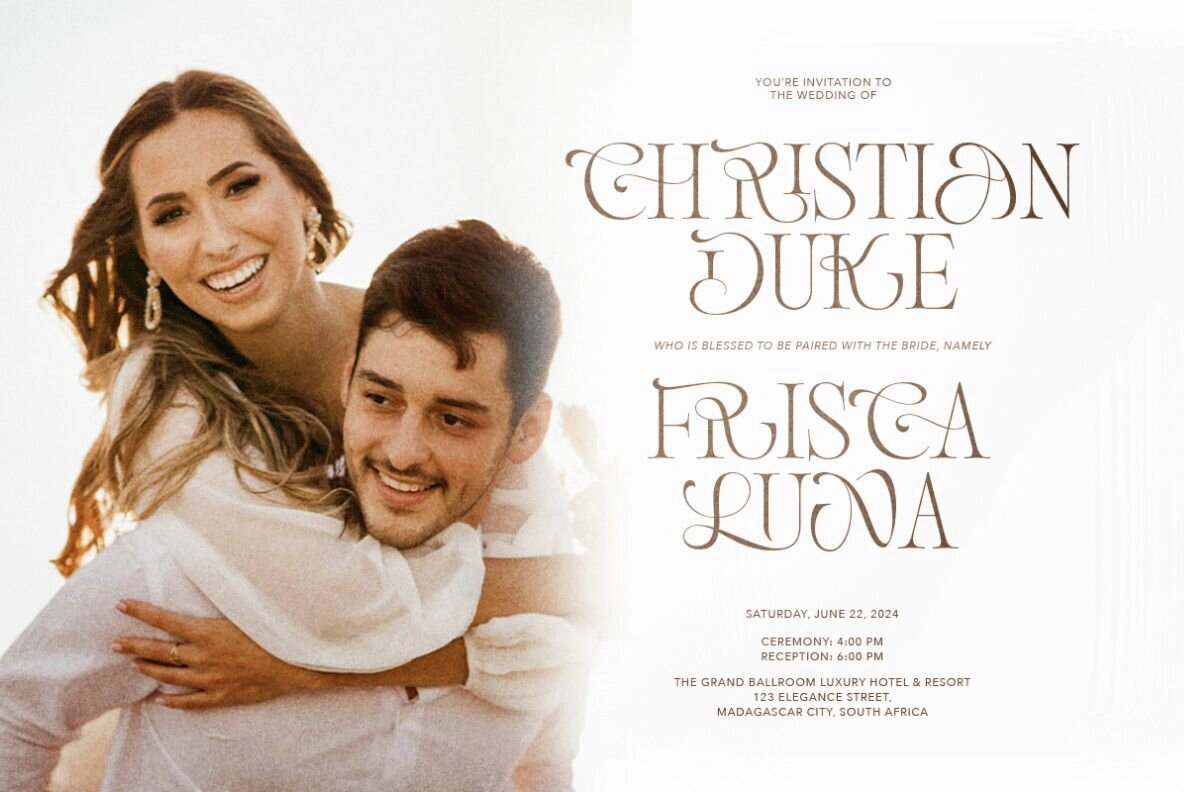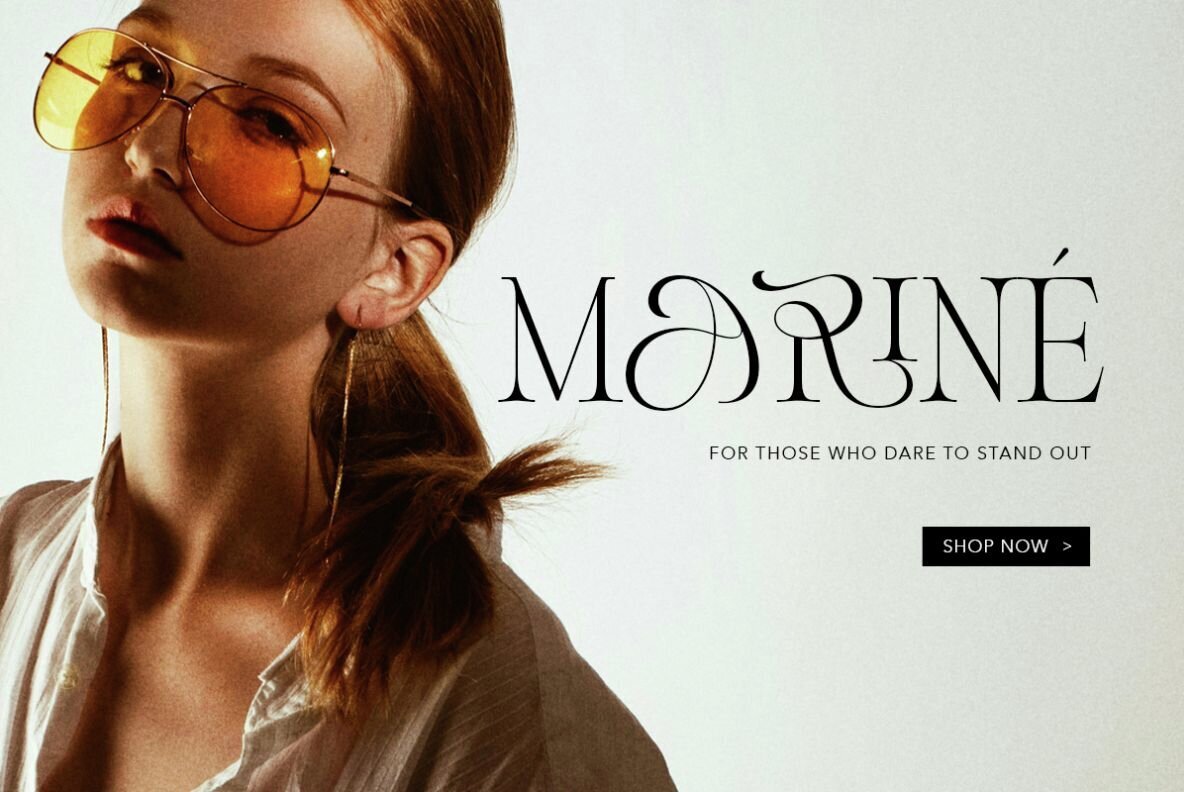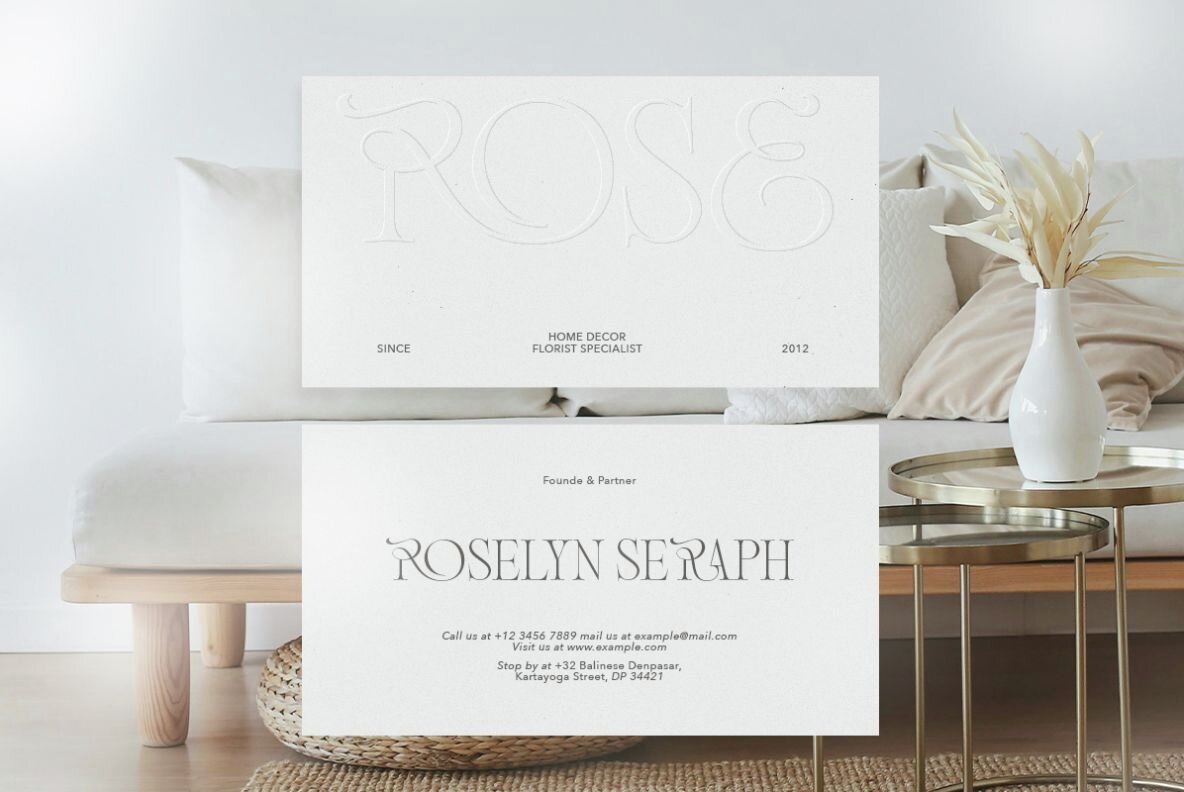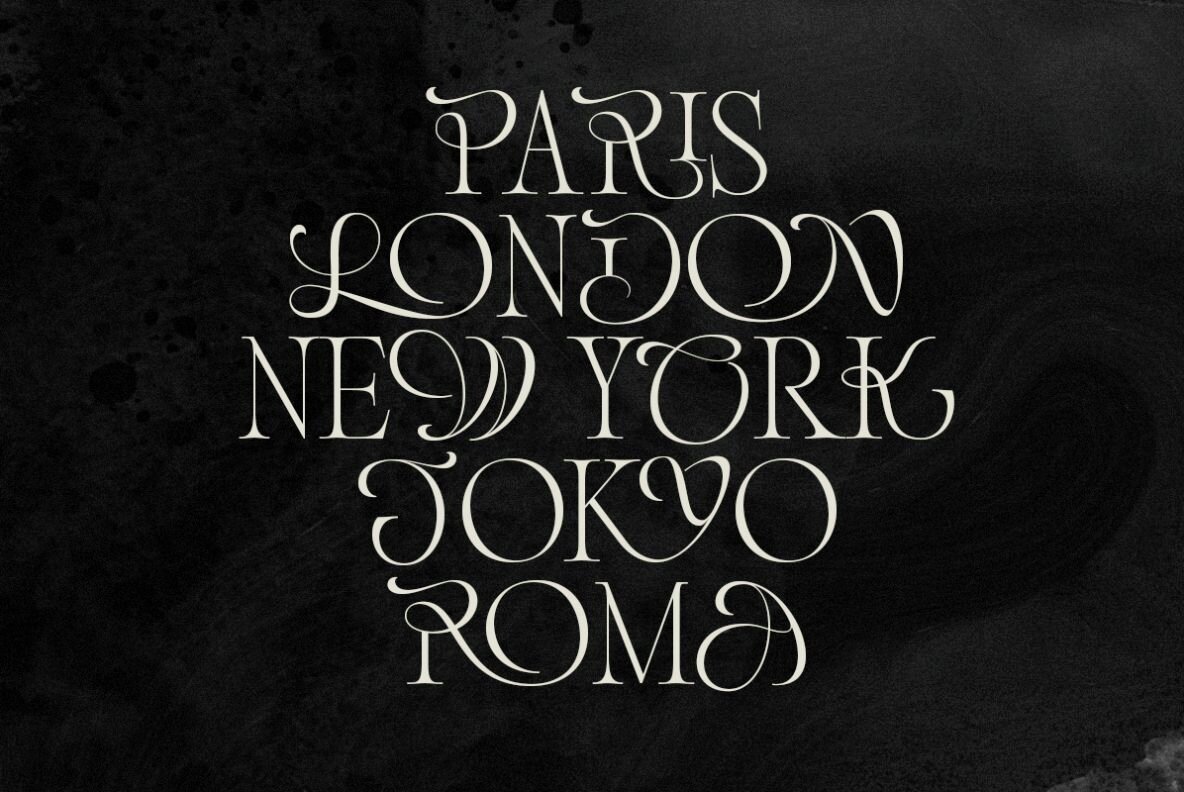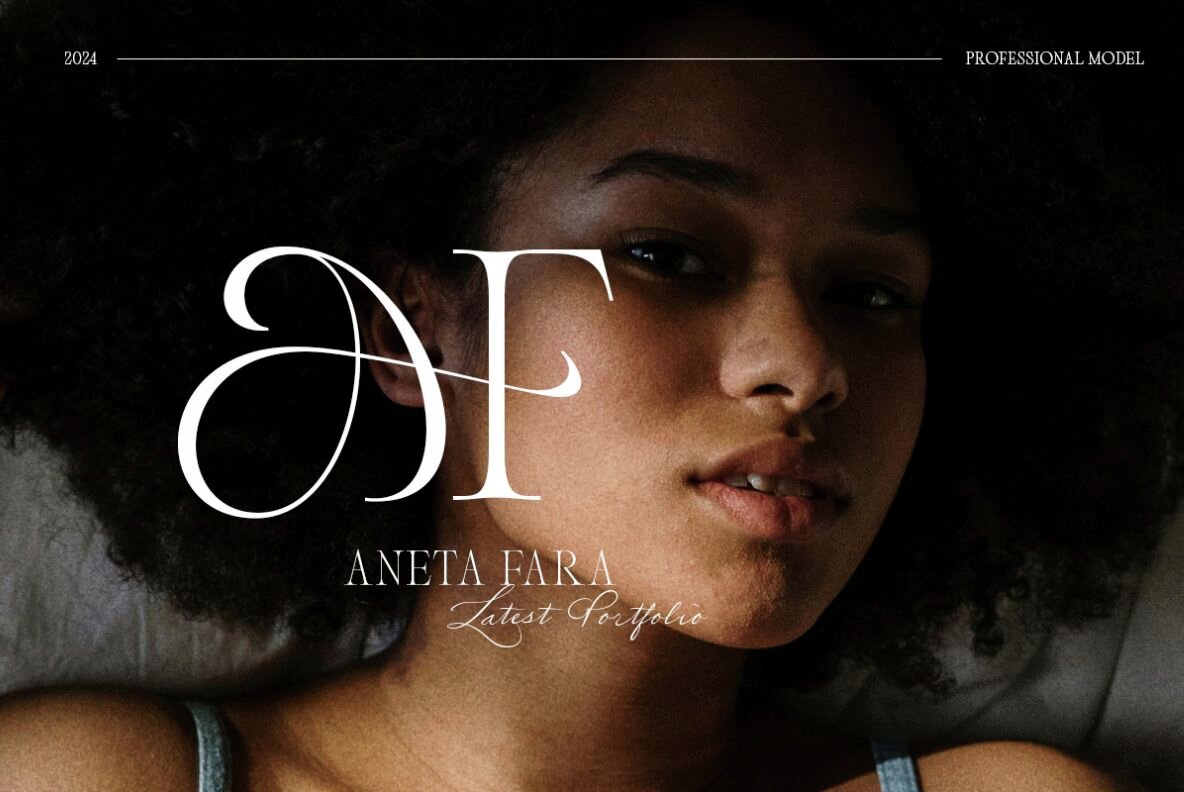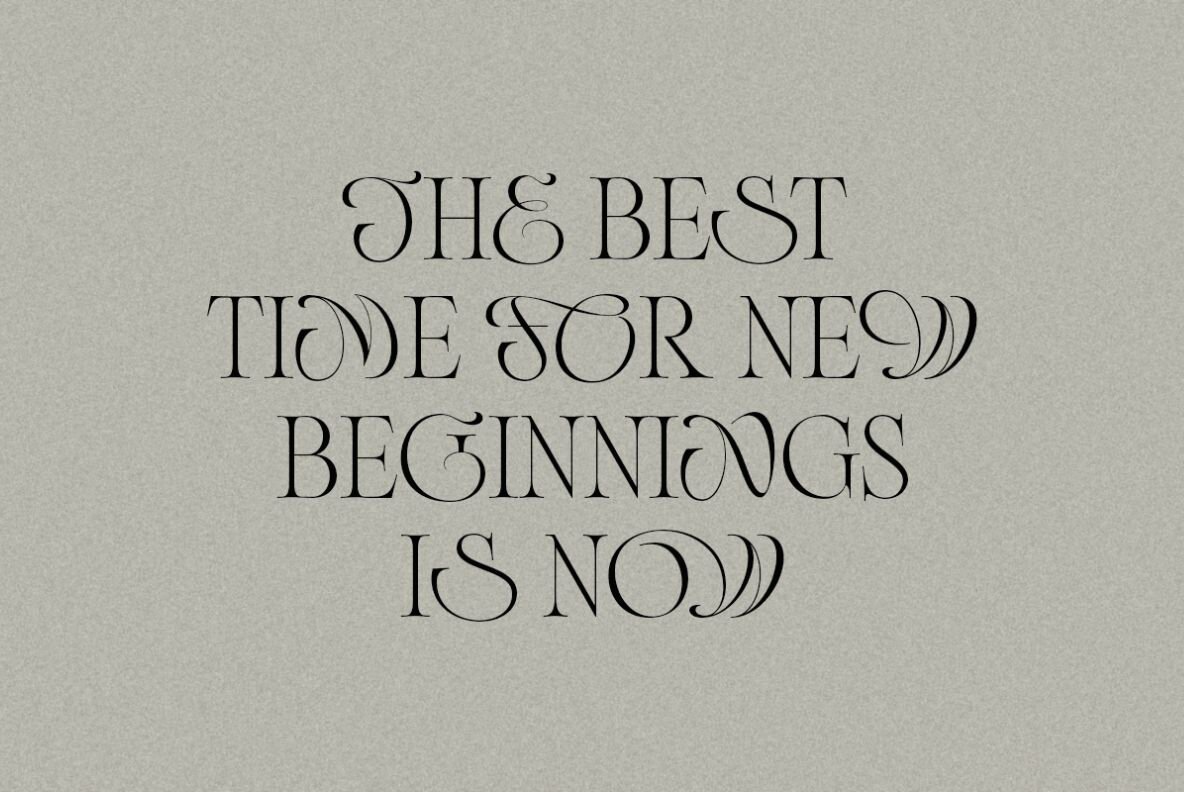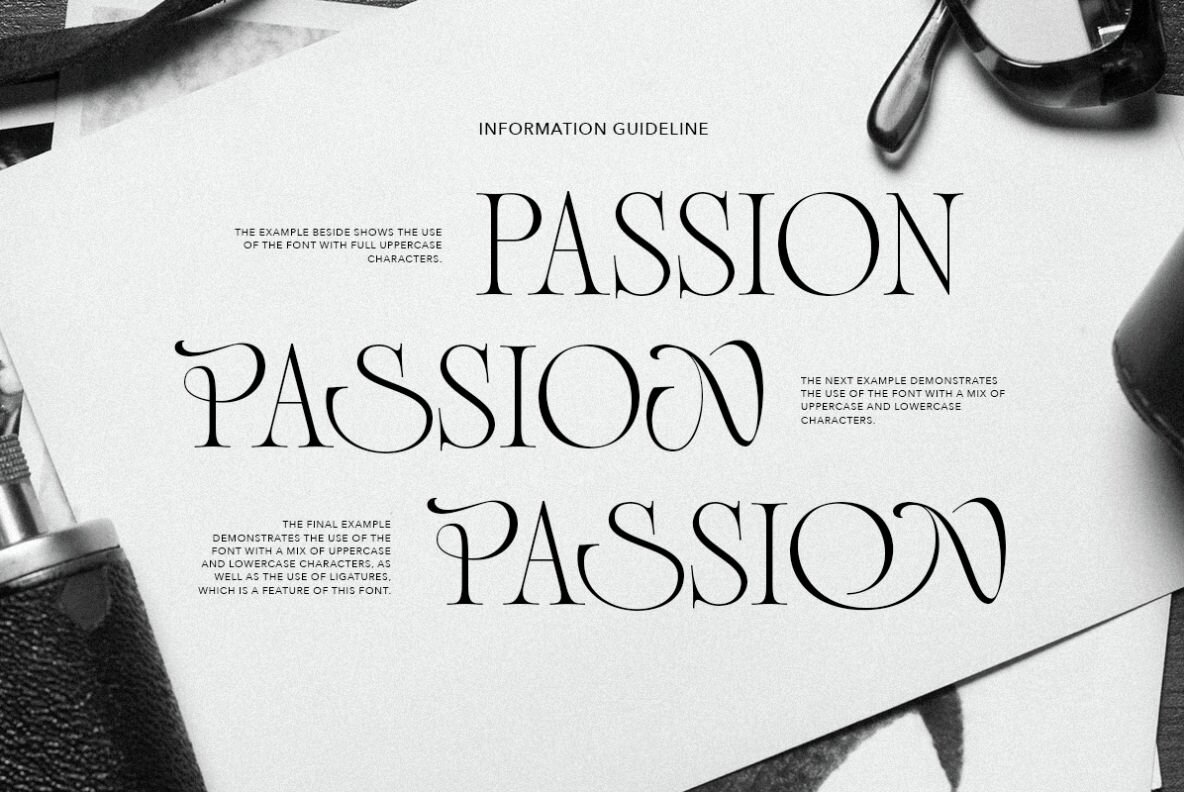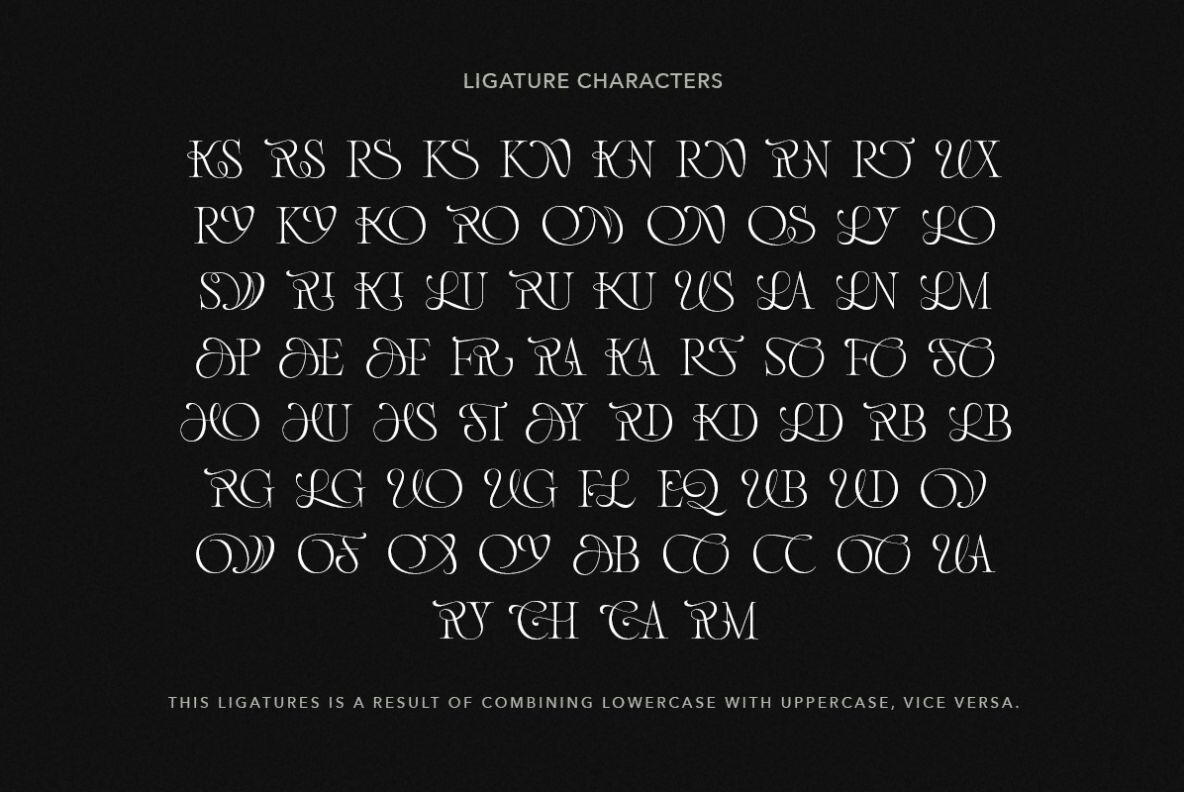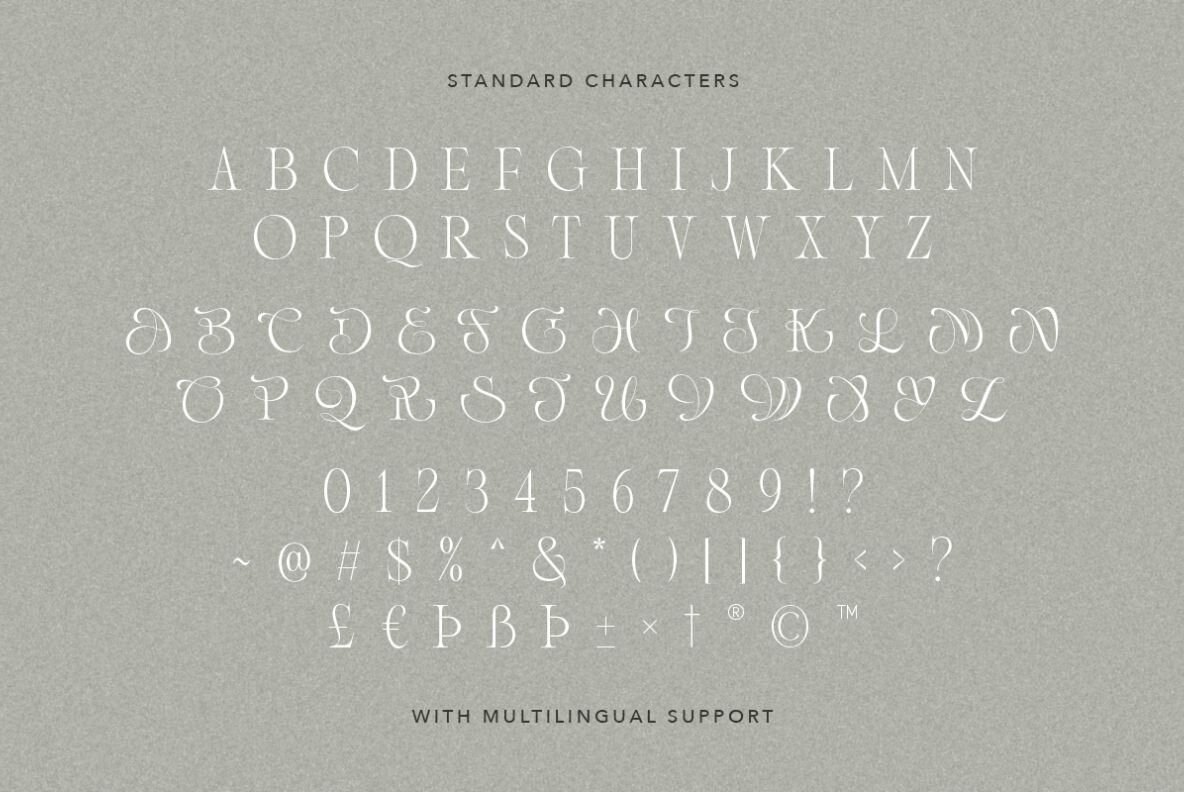
Luxury Charm Font
Luxury Charm Regular
Luxury Charm is a classic serif font featuring elegant ligatures that add sophistication and grace to your designs. Utilizing all-caps serifs for uppercase letters and modern serifs for lowercase letters, this font delivers a stylish and timeless look. Whether used at the beginning of a word or in the middle, the lowercase letters enhance your work's modern appeal. The beautiful ligatures uniquely combine lowercase and uppercase characters, providing a luxurious and delicate touch to any project.
Ideal for a range of applications, including logos, branding, quotes, and wedding invitations, Luxury Charm offers versatility and elegance. Its support for multiple languages ensures that your designs can communicate effectively across different linguistic landscapes. This font's refined aesthetics make it a valuable addition to any designer's toolkit.